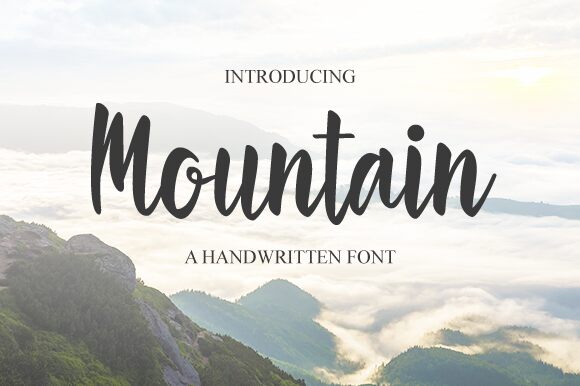
Introducing Mountain, a narrow handwritten font designed by Aldi Raya Pradipta. This unique typeface is perfect for adding personality to logos, posters and other creative projects. It's also great for creating stylish titles and slogans on social media posts and websites.
Presentazione e campione visivo del carattere Mountain
Mountain